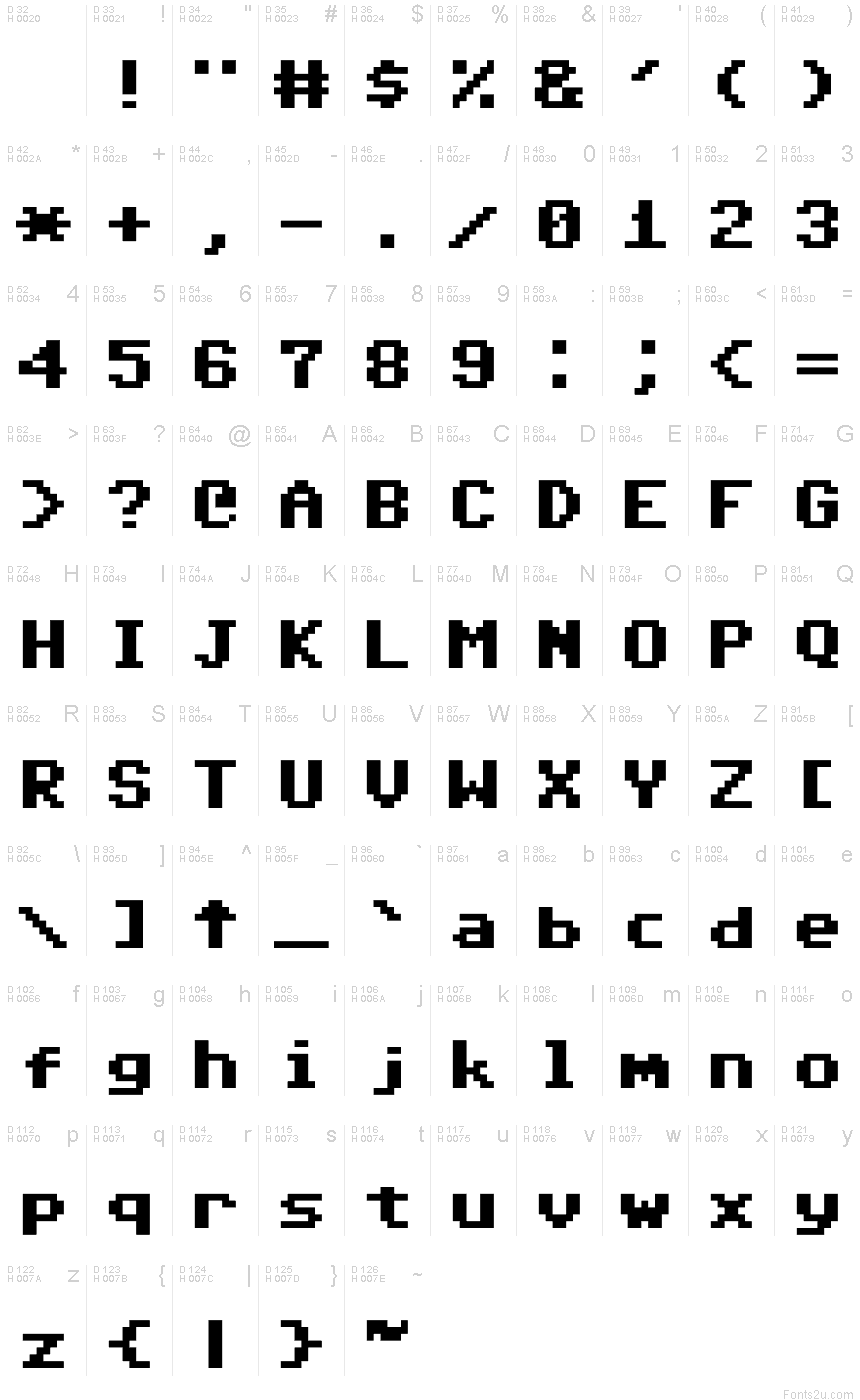
Commodore 64 Pixeled
Commodore 64 Pixeled font by Devin Cook is a free bitmap pixelated typeface that brings the chunky charm of classic 8‑bit screens straight into modern layouts. Each letter is built from tight, square pixels with blocky corners and generous counters, echoing the crunchy glow of old CRT monitors. The rhythm is bold and even, so words lock together like tiles in a game level, staying legible even at tiny UI sizes or blown up for bold, poster-scale headlines.
Using Commodore 64 Pixeled, you can instantly give game interfaces, Twitch overlays, retro tech branding, pixel-art posters, YouTube thumbnails, event flyers, and synthwave album covers an authentic console-era feel. This free font shines when used large for titles and medium for short UI labels; pair it with a clean, neutral sans serif for body copy to keep layouts readable while the pixel texture carries the nostalgic mood.